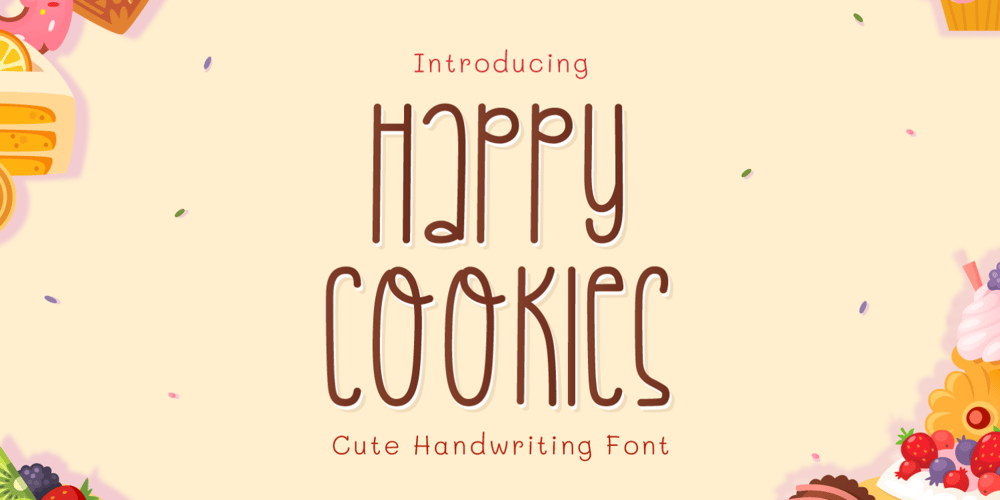
Happy Cookies Font Family was designed by Miftahul Habib and published by Tlatous Type. Happy Cookies contains 1 styles and family package options. Introducing Happy Cookies Font by TlatoustypeHappy Cookies is a Modern Handwritten Font. Happy Cookies is perfect for book cover, product packaging, branding project, megazine, social media, wedding, or just used to express words above the background. This font also multilingual support.